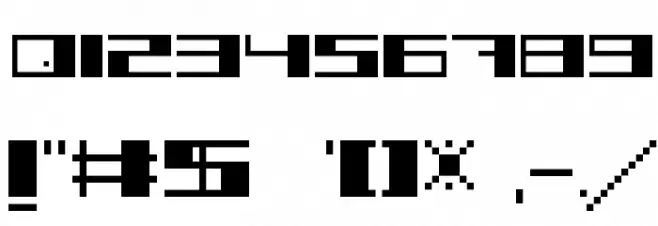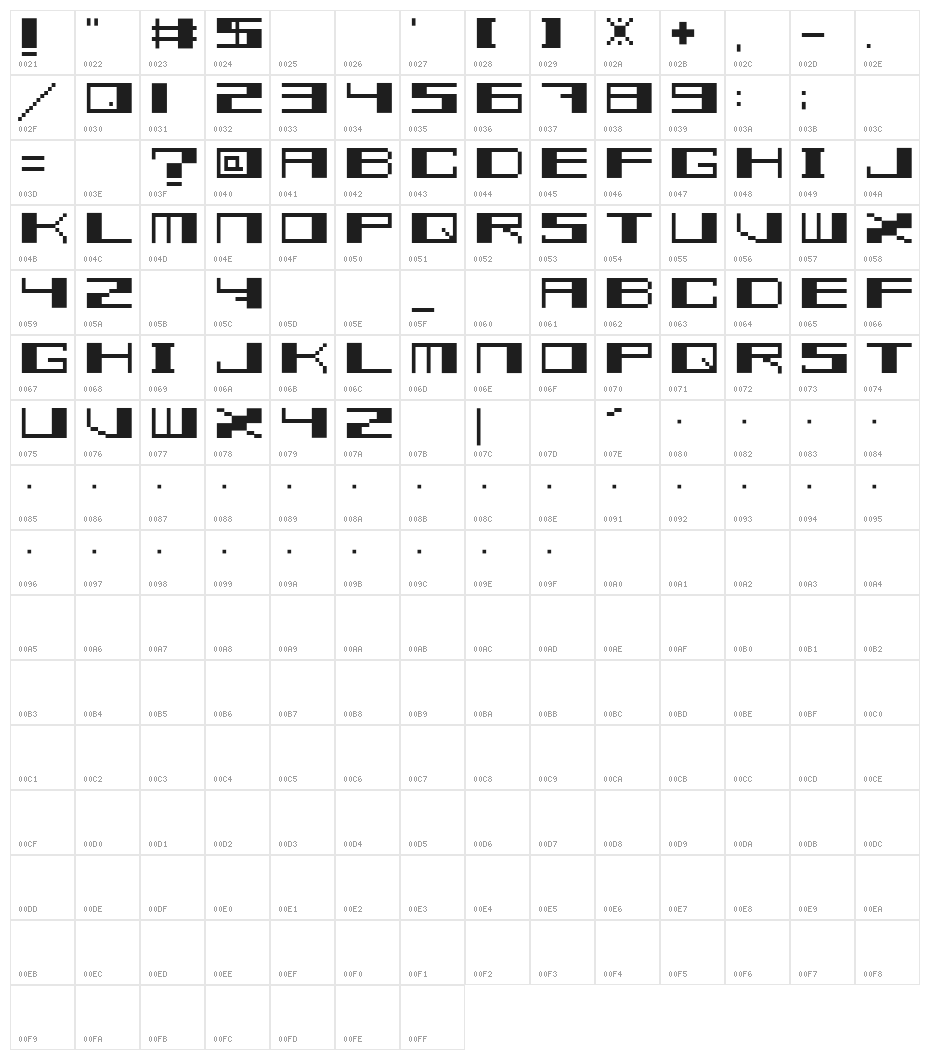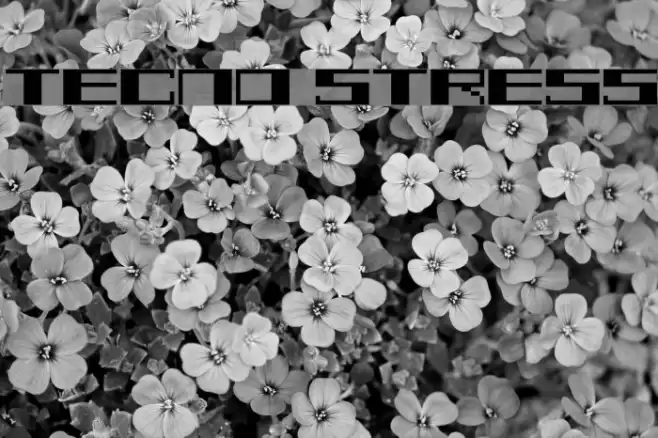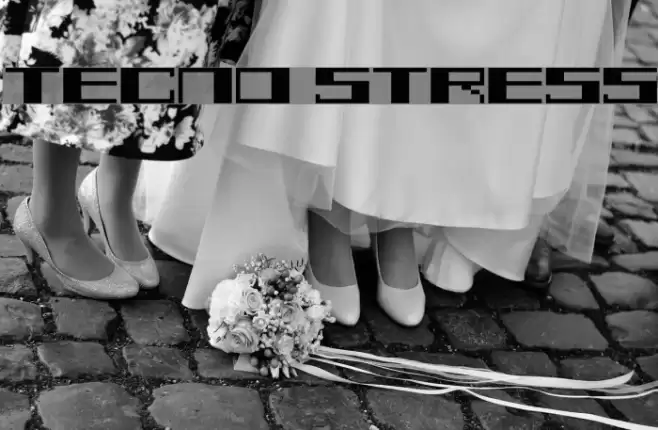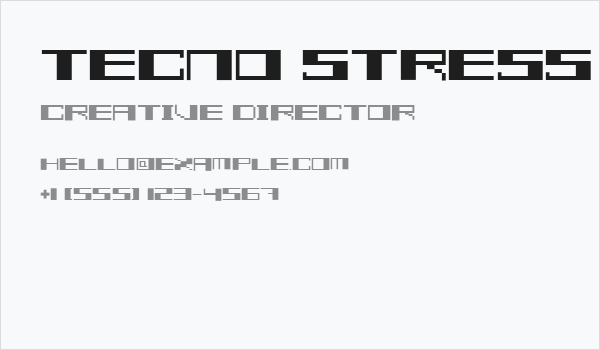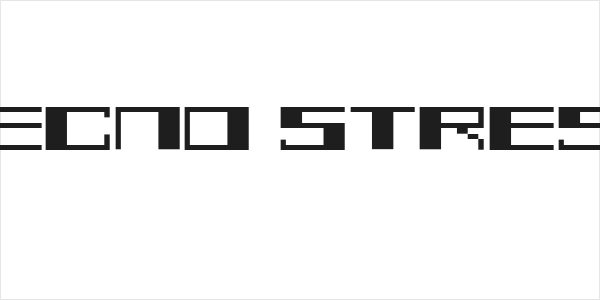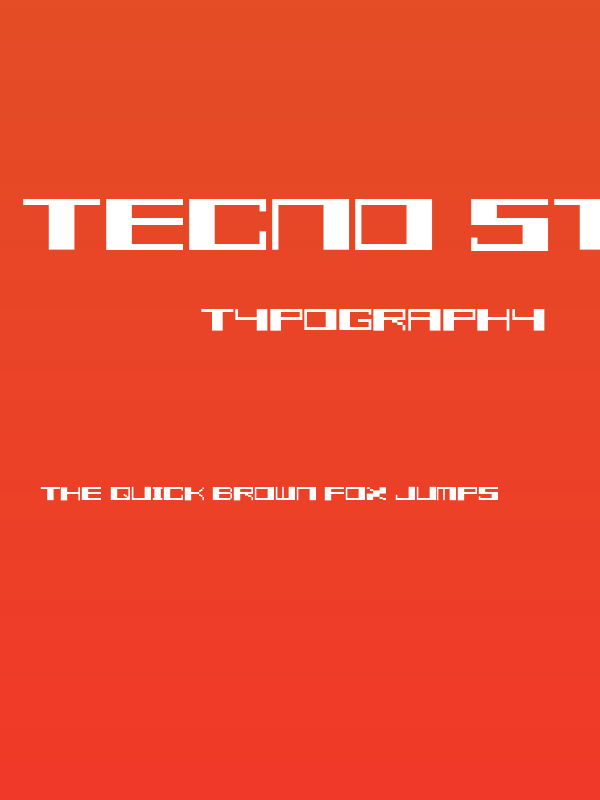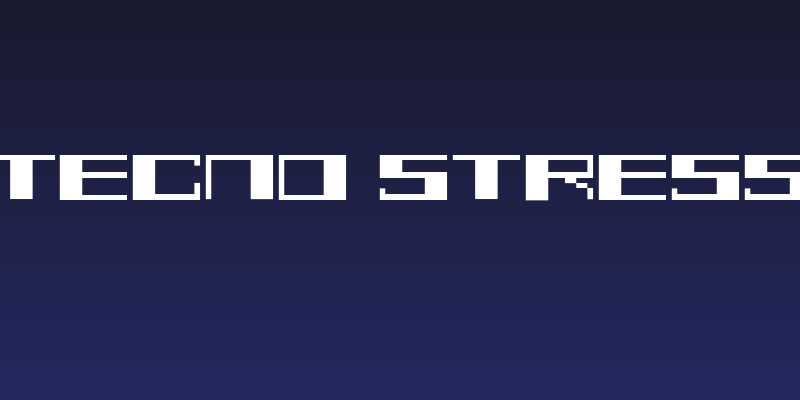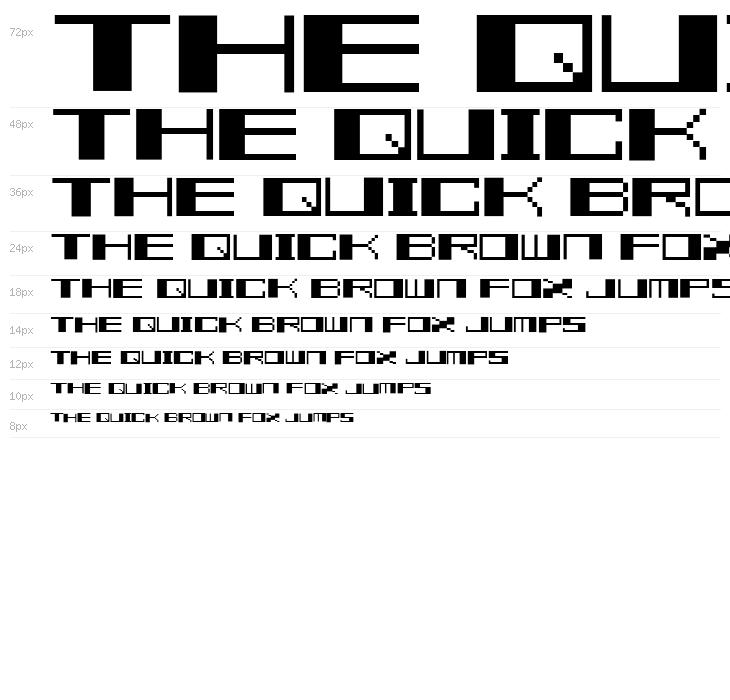
TECNO STRESS Font
TECNO STRESS Description
This font features a distinctly modern and digital aesthetic, characterized by its blocky, pixelated design. The characters are uniformly structured with a futuristic feel, reminiscent of early computer graphics or digital displays. The uppercase and lowercase letters maintain a consistent height, contributing to a cohesive and streamlined appearance. The numerals and special characters follow the same geometric style, enhancing the overall uniformity. This font's unique style makes it stand out, offering a blend of retro and contemporary vibes.
| Use Case | Headlines, Logos, Digital displays |
| Proposed Projects | Ideal for tech-related projects, digital art, video game design, or any creative work that requires a modern, digital look. |